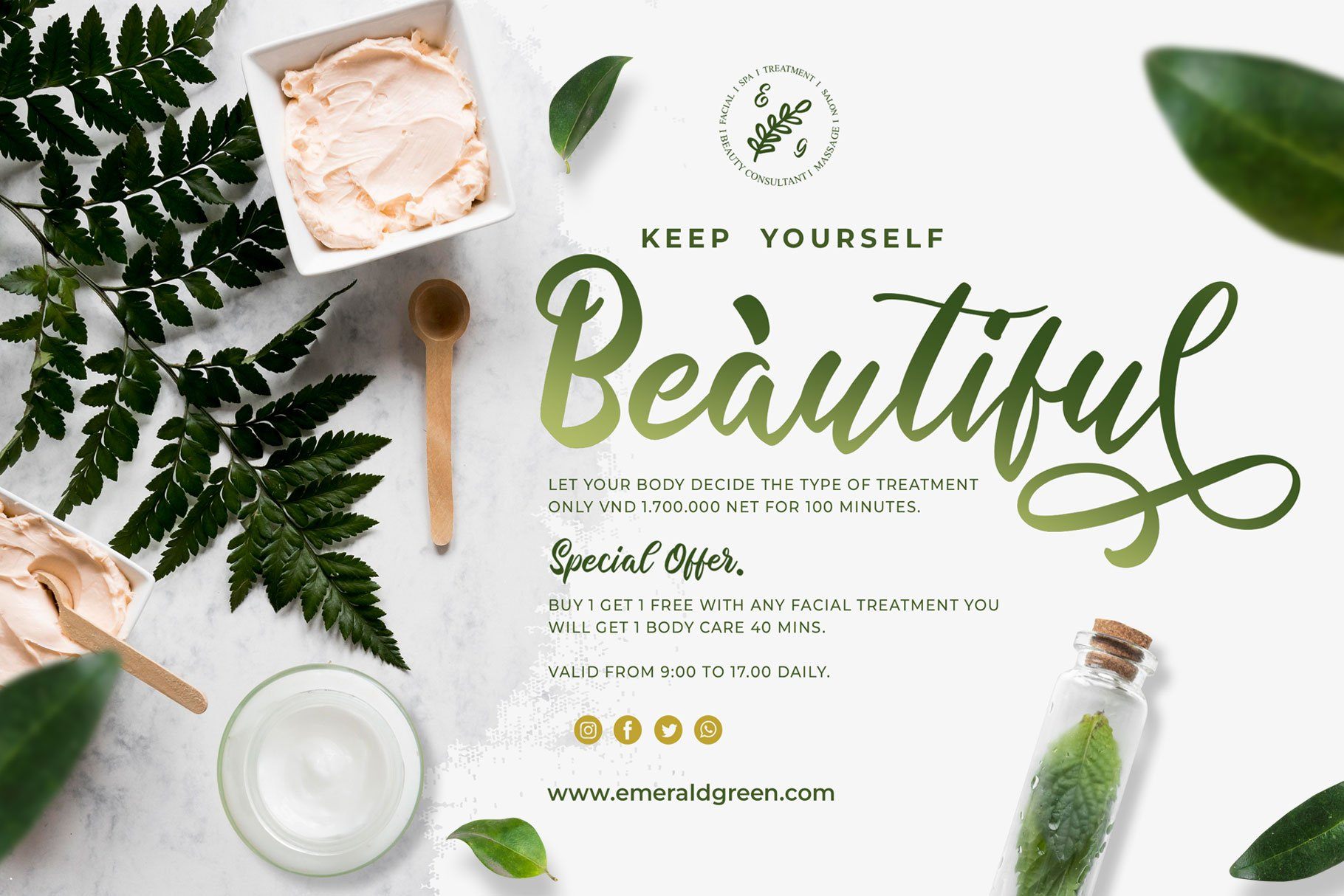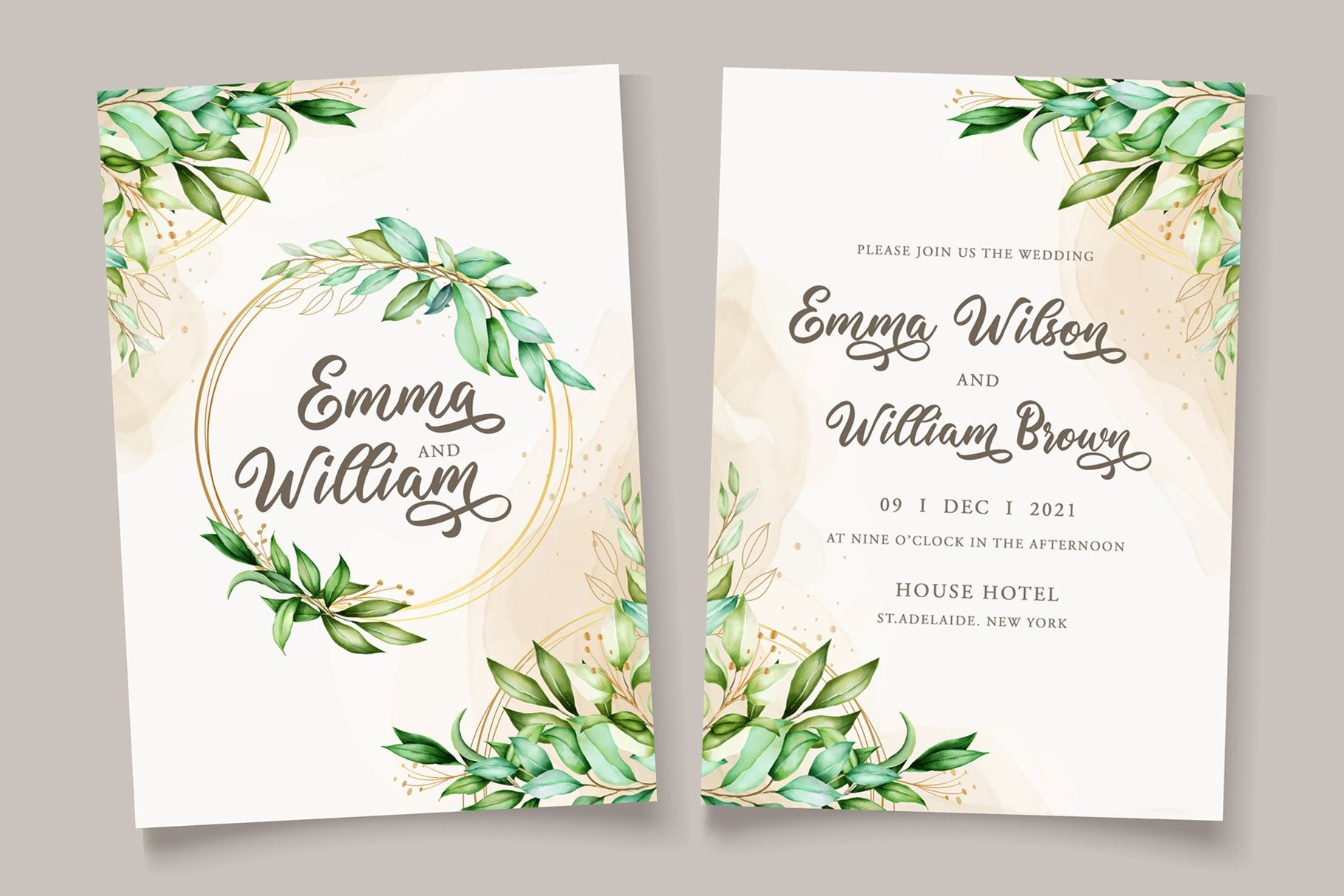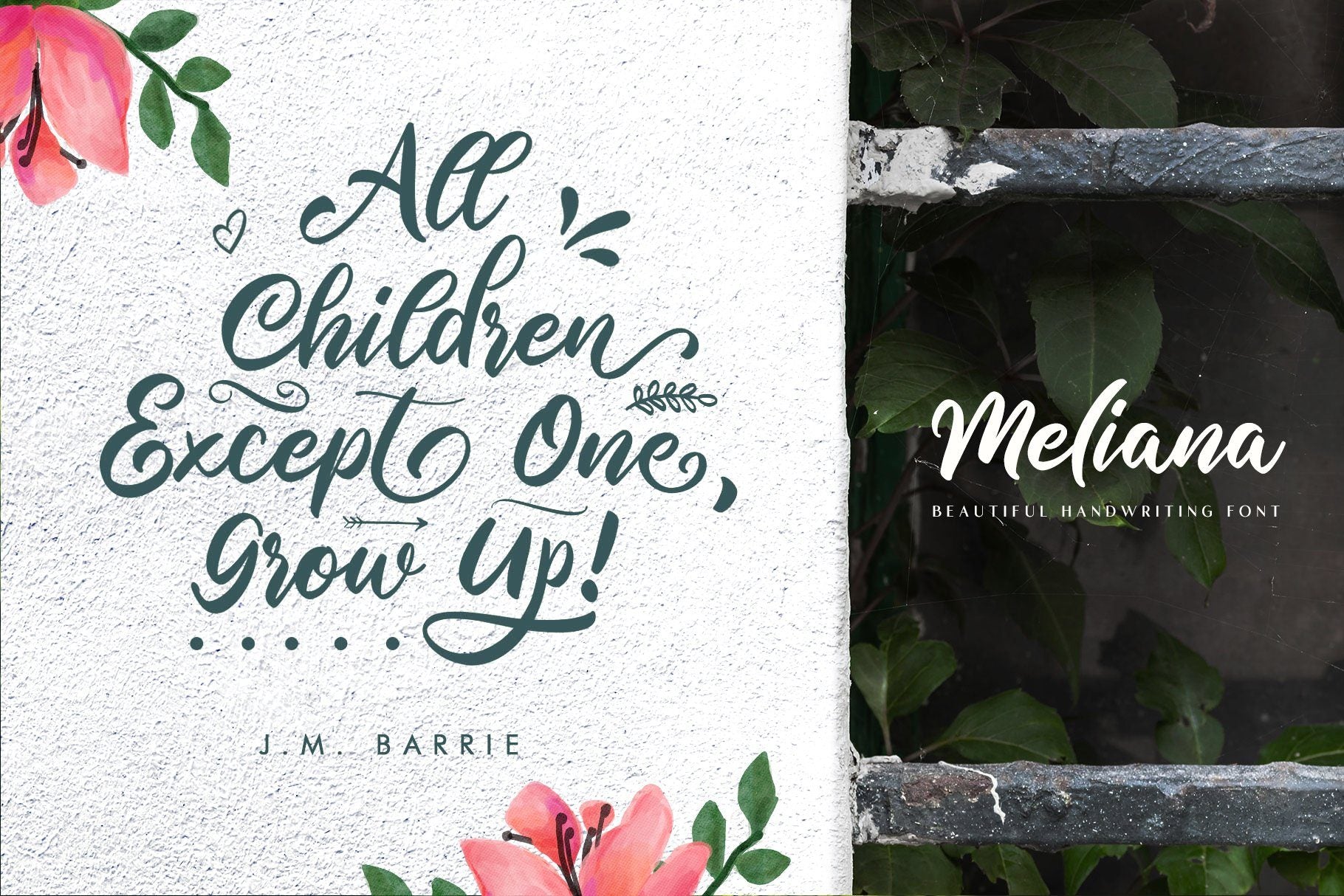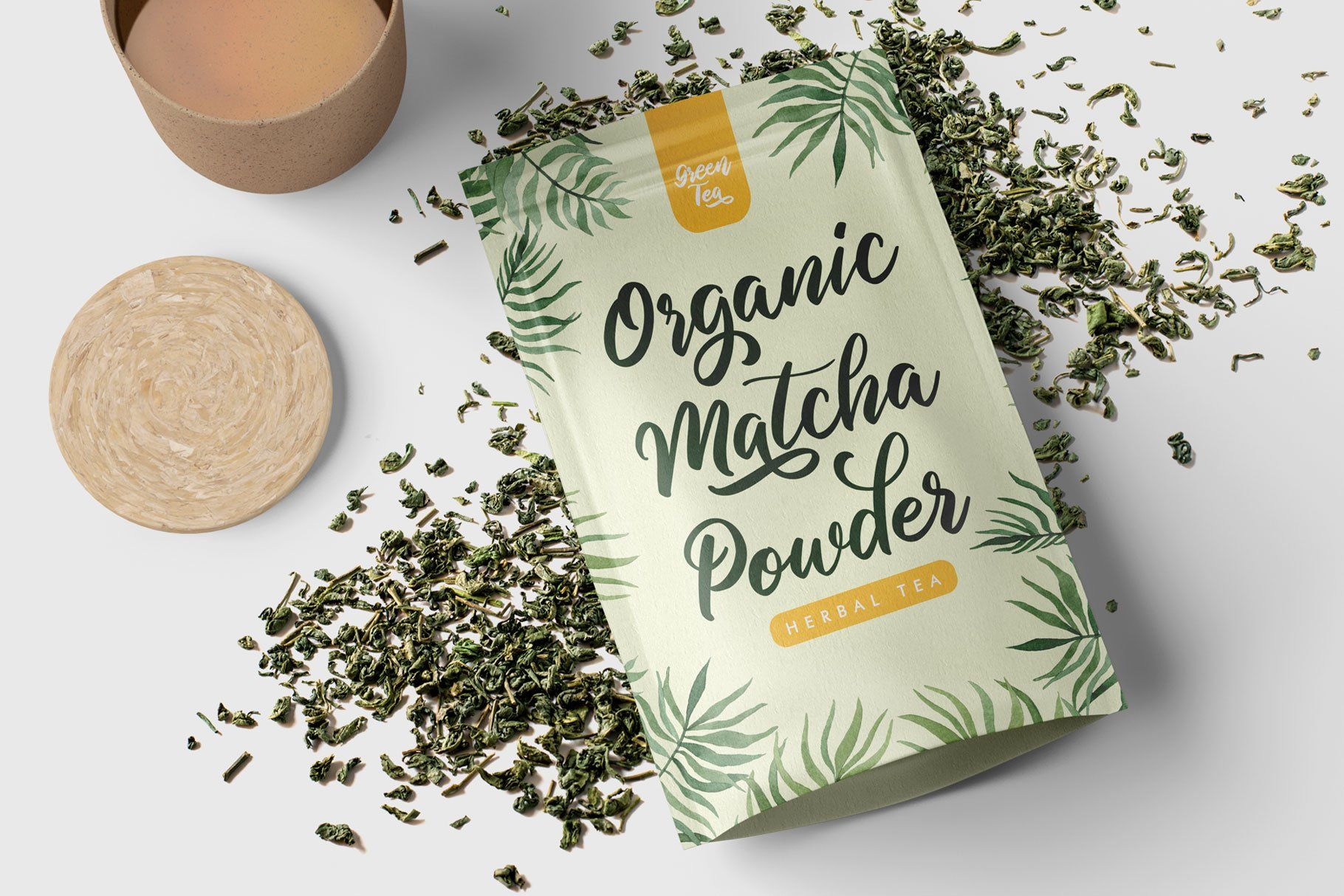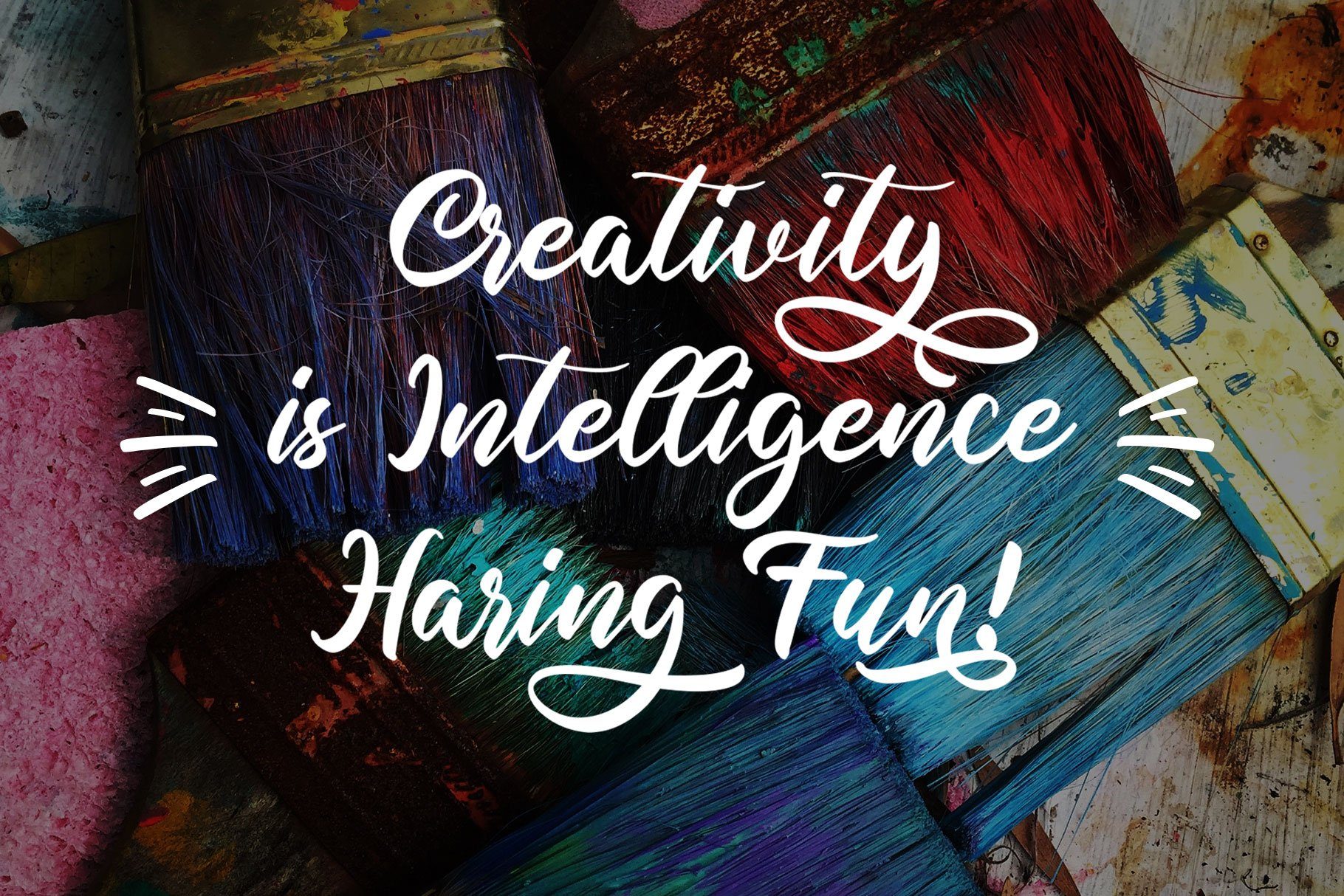
About Meliana Script
Meliana is a joyful handwriting font, created with a freestyle hand-lettering and a bit bouncy letterform that gives cute and friendly looks. Inspired by children’s style and natural handwriting, Meliana Script is suitable for logo, packaging, quote, apparel, cards, invitation, wedding, branding, poster, and more! Meliana is equipped with lots of alternates, there are ligatures, alternates, and stylistic set 01 – 06 that you can mix and match to get more variation of typographic design! You can combine the font with Meliana Extras, containing the swash and doodles. Fonts featured : Uppercase Lowercase Numbers Symbols & punctuation Alternates Swashes